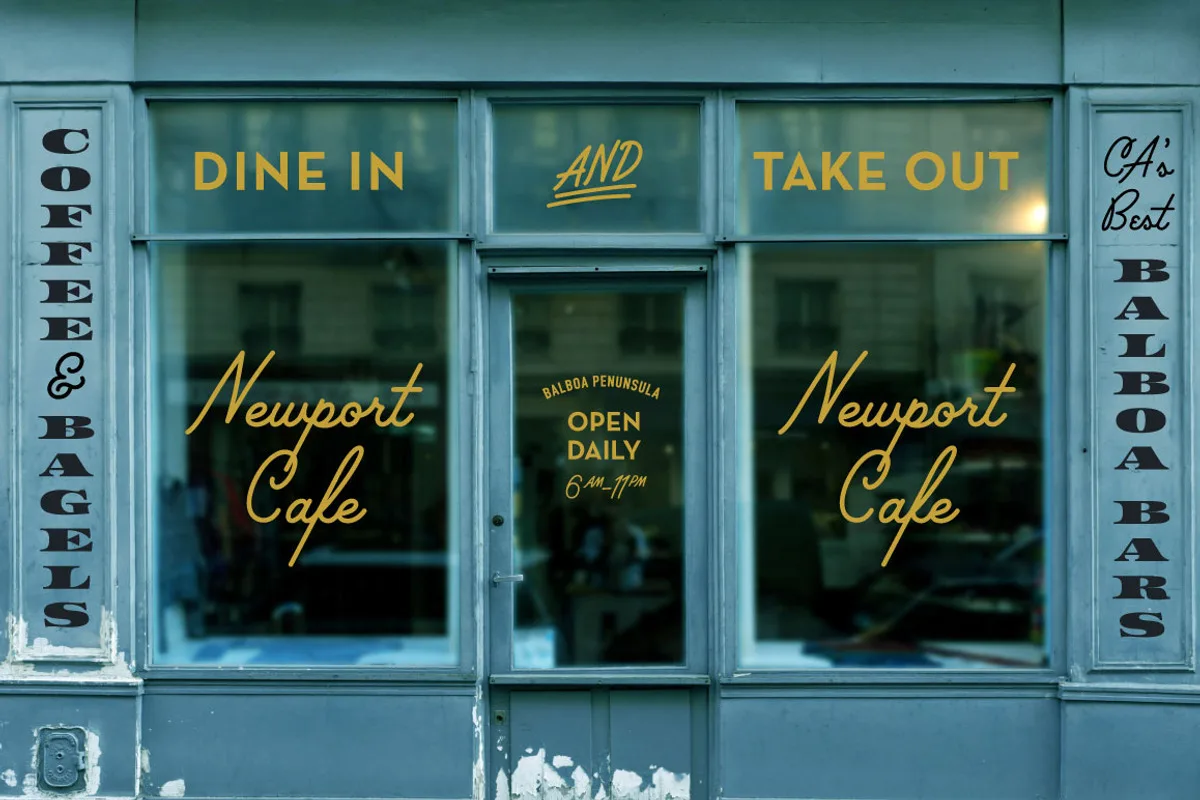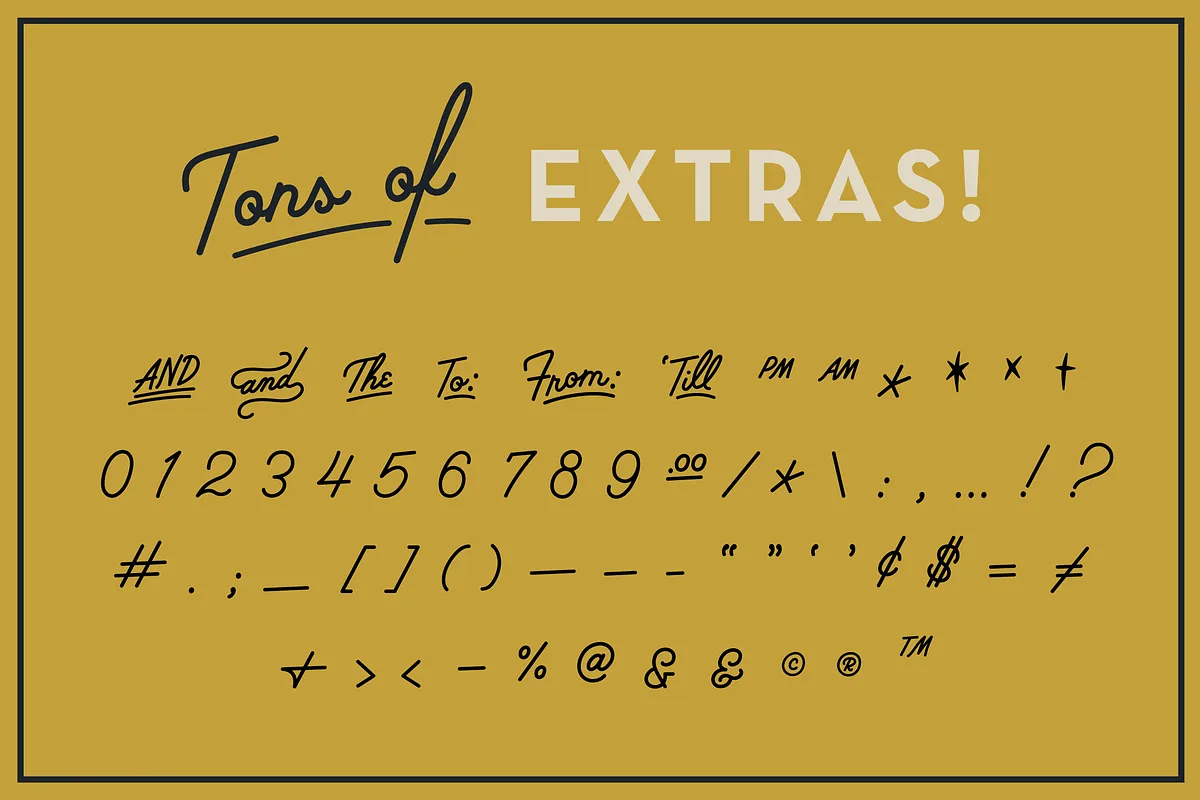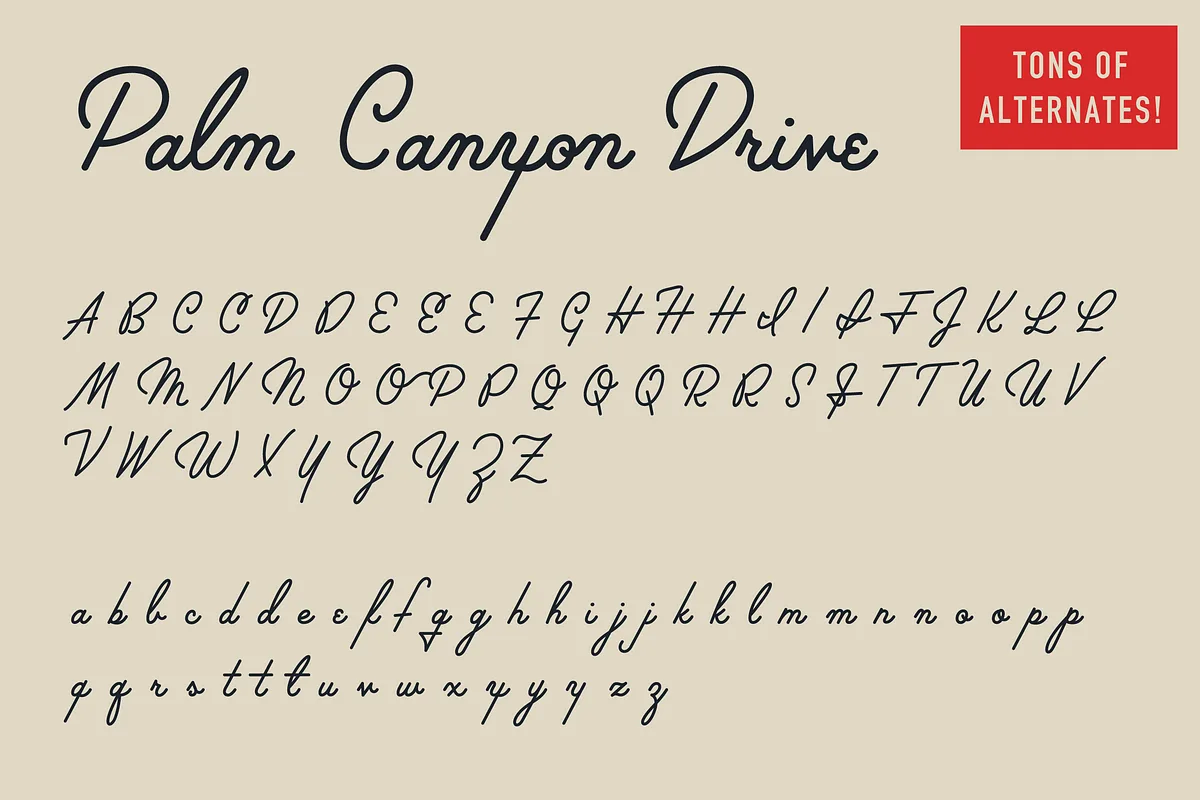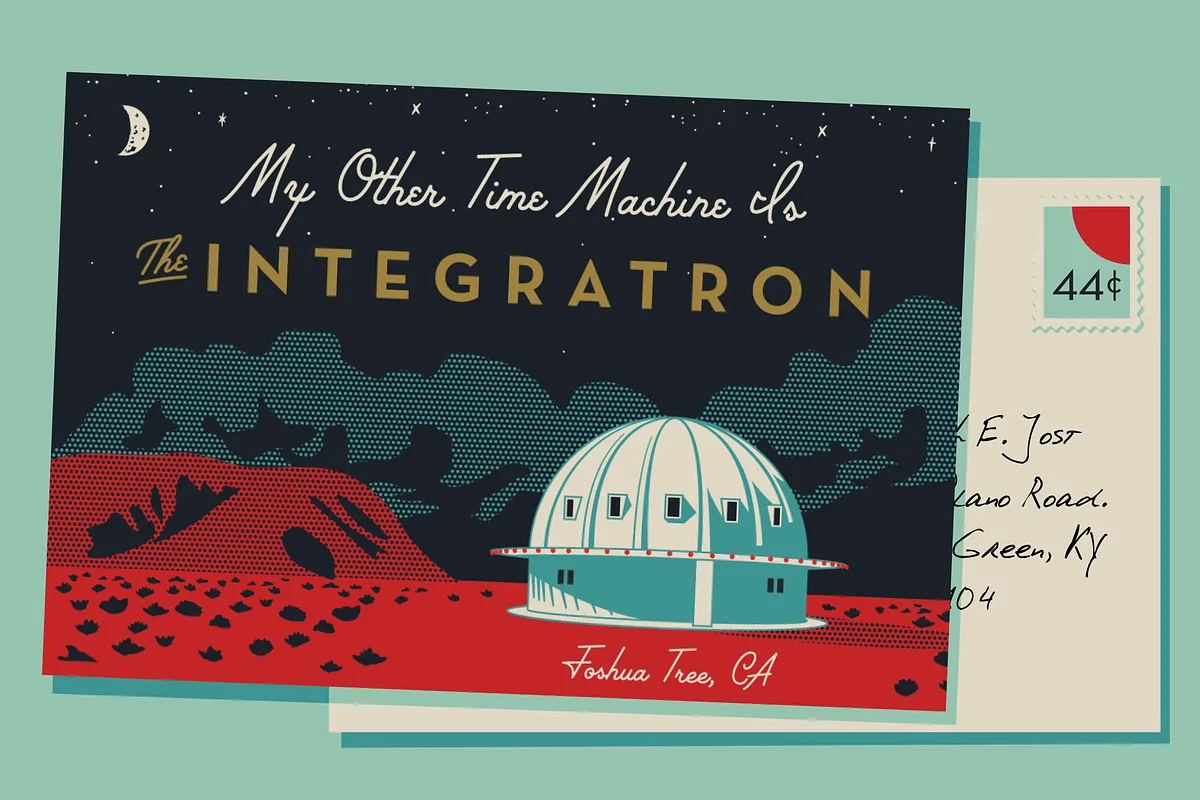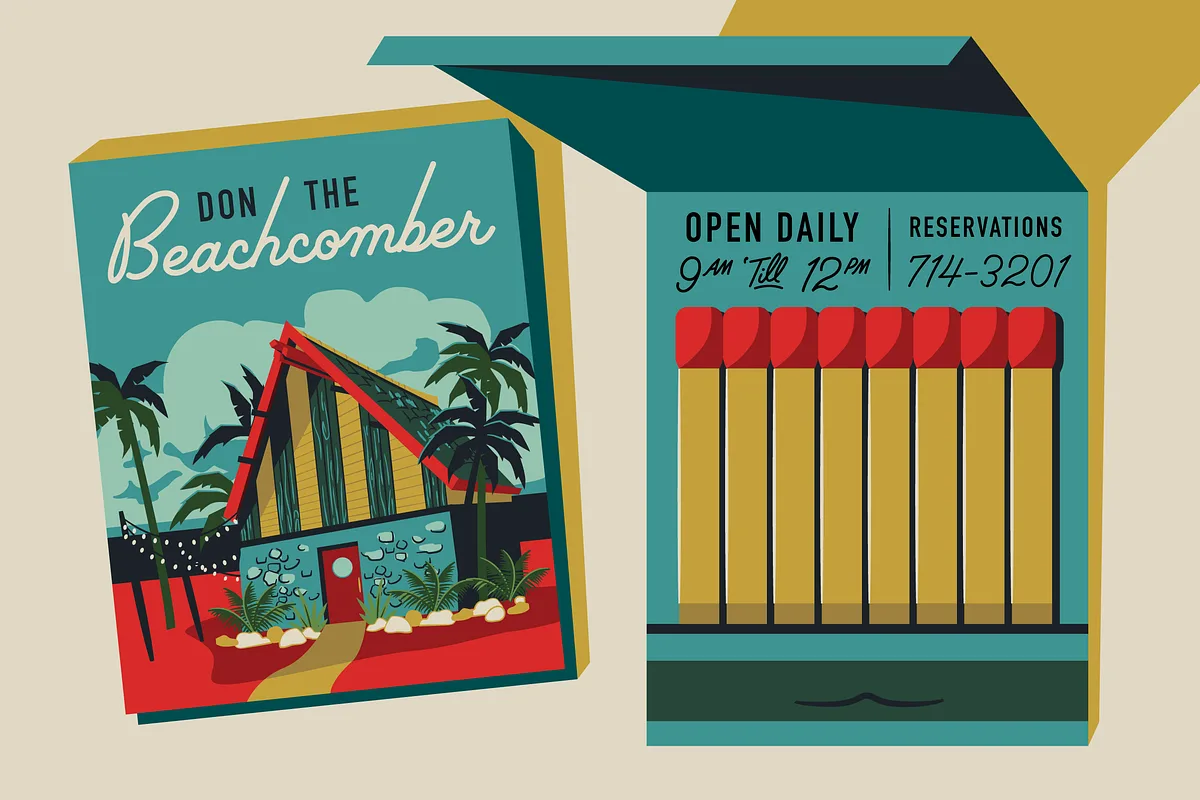
Palm Canyon Drive is a monoline script inspired by retro matchbook covers, travel postcards, Tiki bars, and Hollywood. Mid-century California was a magical place. Post-war optimism fueled the popularity of everything from Hollywood to roadside diners.